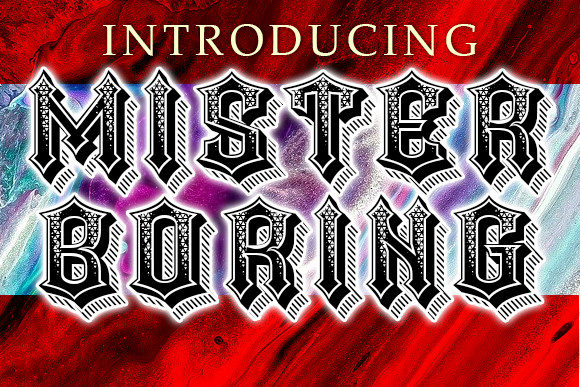
Feast your eyes on Mister Boring, a gothic style typeface that's anything but boring! This decorative font is simplicity personified, yet it wields a stunning visual impact that'll make your creations shine brighter than diamonds.
Crafted by the talented vladimirnikolic, Mister Boring embodies the essence of understated elegance. With its clean lines and bold presence, this font exudes a sense of sophistication that's perfect for a wide range of design projects.
Whether you're creating eye-catching flyers or captivating Canva designs, Mister Boring is your secret weapon to leave a lasting impression. This font effortlessly elevates your words, transforming them into striking visuals that demand attention.
Unleash your creativity and let Mister Boring take center stage. Its versatility knows no bounds, making it the perfect choice for logos, posters, branding, social media graphics, and so much more.
Join the growing legion of designers who have discovered the power of Mister Boring. Its charm is undeniable, its impact is undeniable, and its ability to make your creations stand out is undeniable.